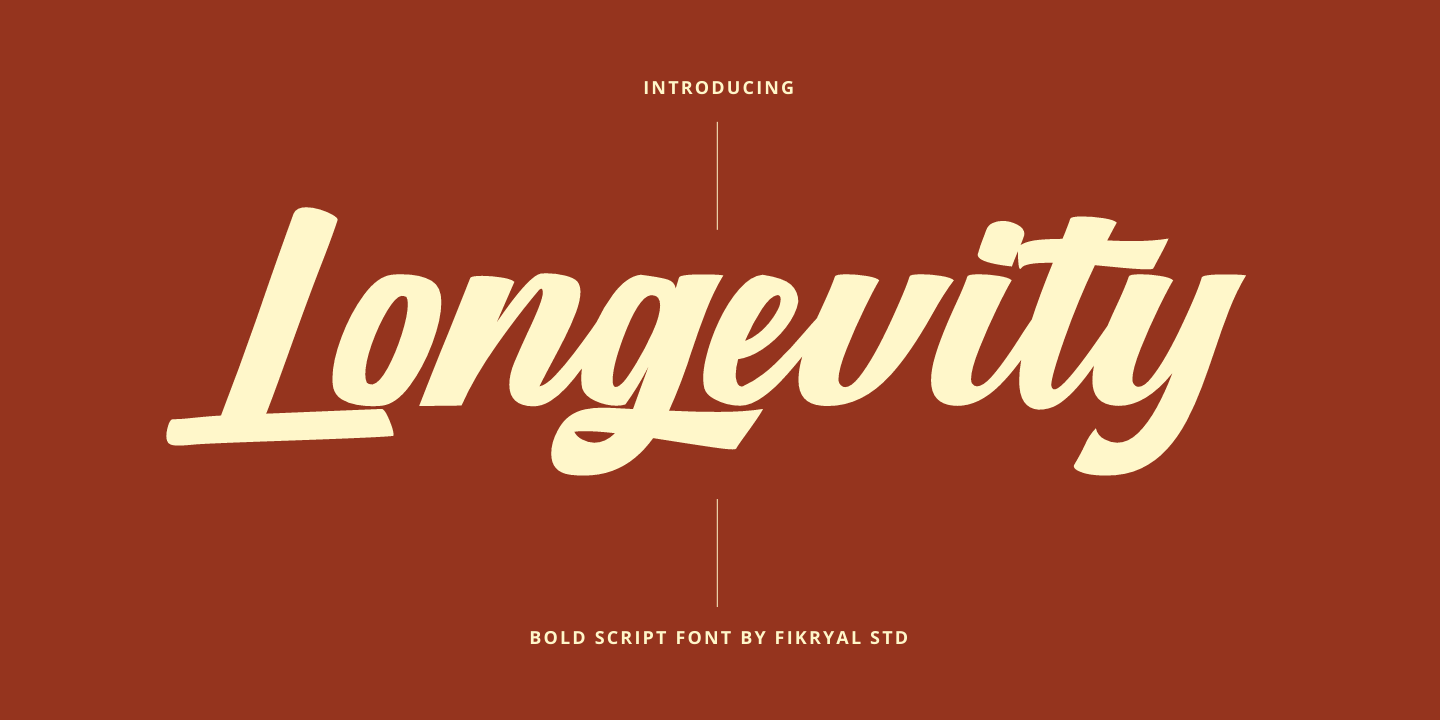
Longevity Font is perfect for anti-aging wellness centers, life extension research, healthy aging campaigns, senior living communities, longevity medicine practices, health span optimization services, sustainable lifestyle brands, generational planning materials, wisdom-focused education, and enduring applications that celebrate the pursuit of healthy longevity and meaningful life extension.
What makes Longevity Font truly exciting is its timeless embodiment of endurance and vitality that captures the essence of healthy aging and the pursuit of extended life span through wisdom, wellness, and sustainable living practices. This exceptional typeface combines classical stability with modern health consciousness, featuring enduring letterforms and vital character that convey both resilience and ongoing vitality. The font's longevity-focused personality and health-conscious design make it perfect for organizations seeking to communicate life extension, healthy aging, and the transformative power of lifestyle choices that promote not just longer life, but better quality of life throughout all stages of human existence.
The Longevity Font family includes multiple weights and styles: Light, Regular, Medium, Bold, and Enduring variations designed for maximum vitality impact. Each family member maintains the distinctive lasting character while offering flexibility for diverse health applications and wellness branding systems. The comprehensive character set supports wellness typography needs and longevity design elements, making it suitable for international health communications.
When you choose Longevity Font Free Download, you're selecting a typography foundation that delivers authentic wellness credibility and life extension excellence to every health-focused project. This enduring typeface excels in applications where health span and vitality are paramount, delivering exceptional longevity appeal while maintaining wellness authenticity. Whether you're designing health brands, aging campaigns, wellness materials, or longevity marketing content, this font provides the enduring sophistication and vital energy that resonates with health-conscious individuals who appreciate sustainable wellness, healthy aging, and the pursuit of extended vitality through informed lifestyle choices and preventive health practices.